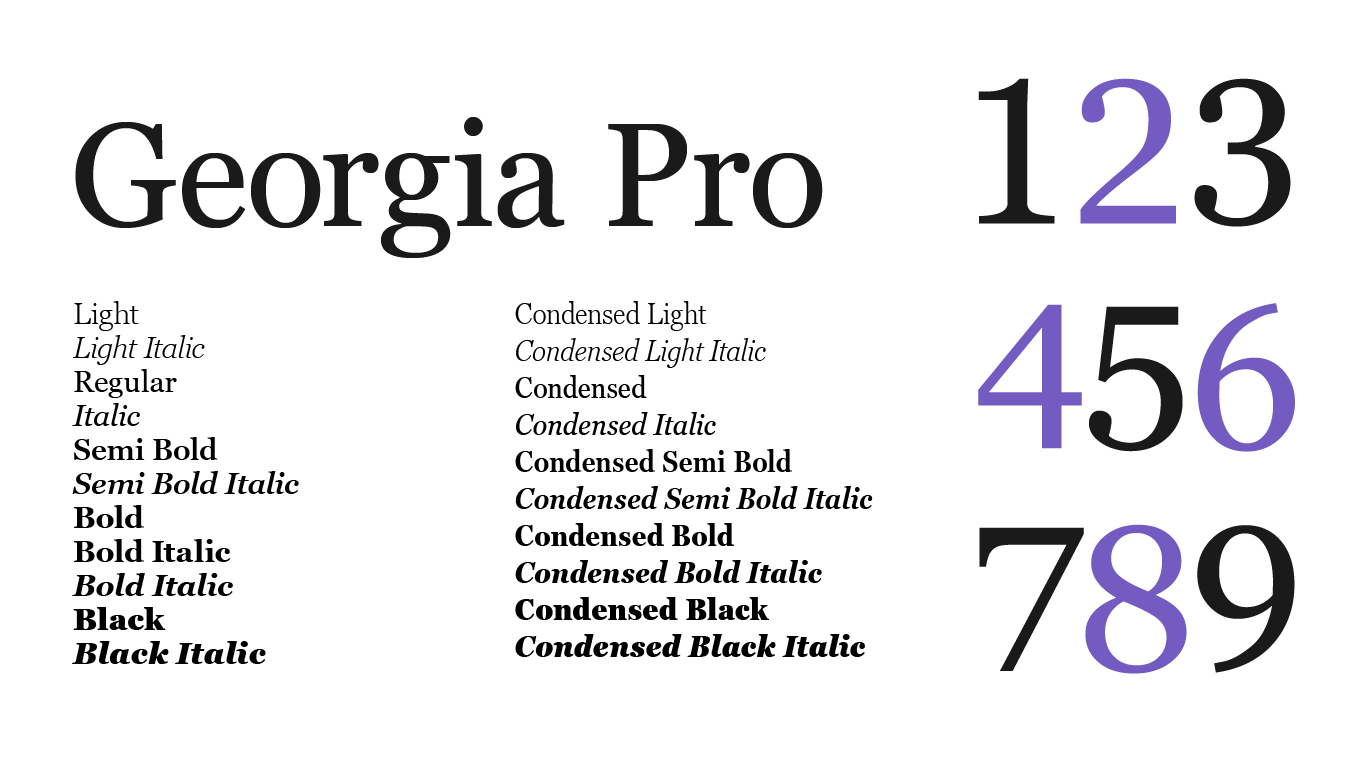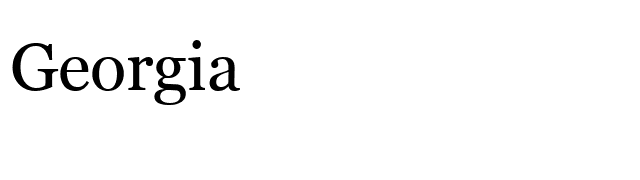
Georgia
Download georgia pro cond font for pcmac for free take a test drive and see the entire character set. The font is encouraged by scotch roman layouts from the 19th century and was dependant. Download georgia italic font family georgia by with italic weight and style download file name is georgia corsivottf.
It was supposed as a serif font that will appear classy but legible printed little or on low resolution screens. Georgia pro cond italic. Download font georgia pro from this family.
We have 1335 free italic fonts to offer for direct downloading 1001 fonts is your favorite site for free fonts since 2001. Georgia italicttf file size. Georgia is usually a serif typeface built in 1993 by matthew carter and hinted by tom rickner to the microsoft company.